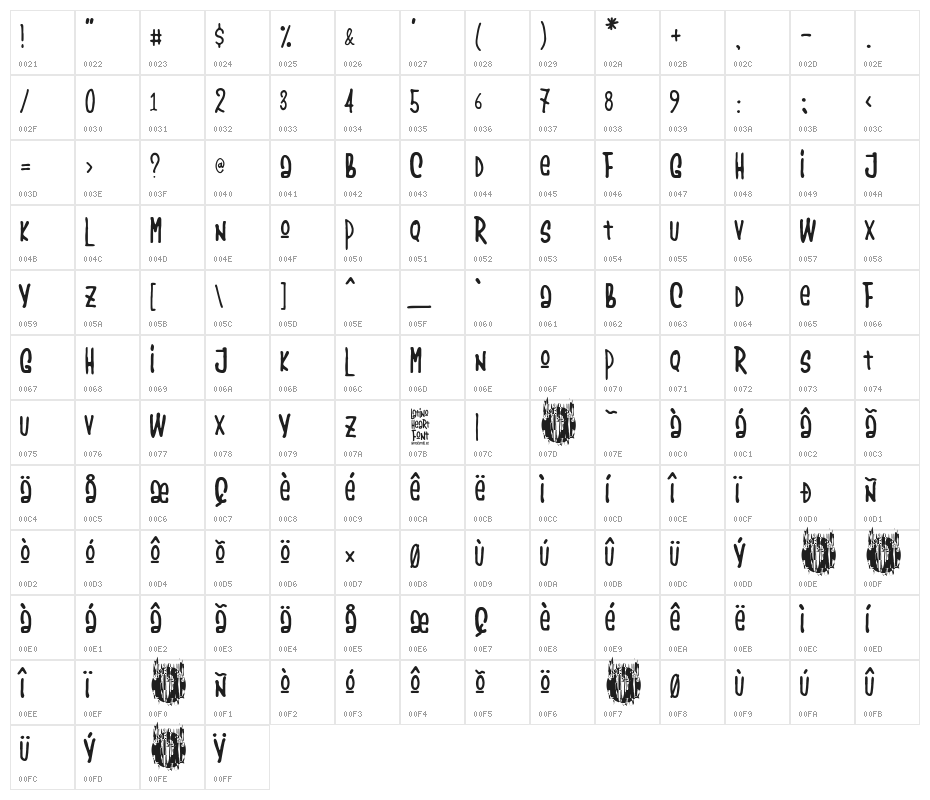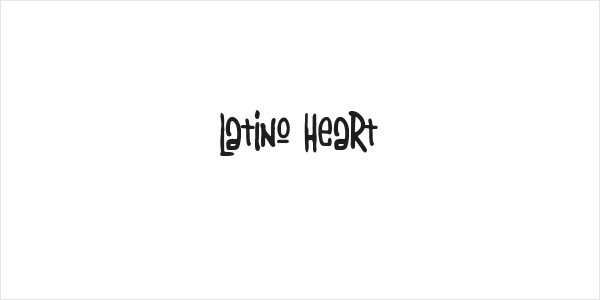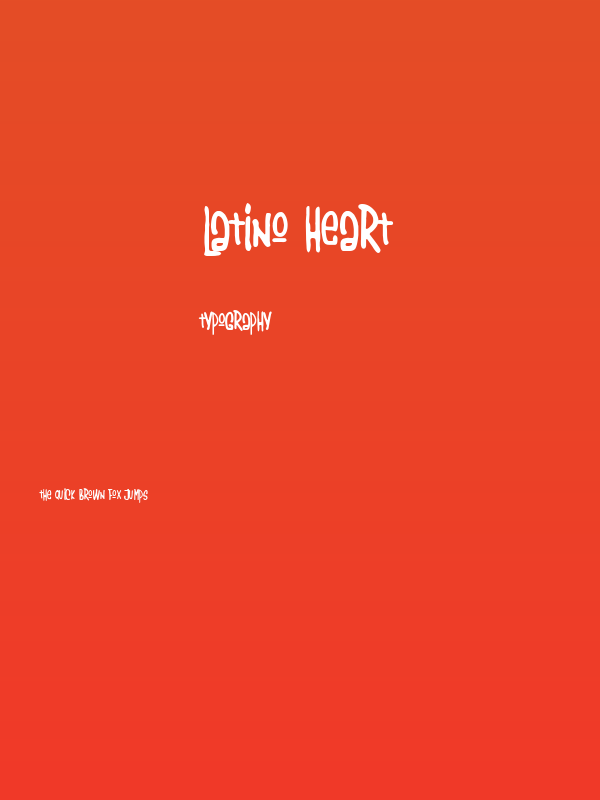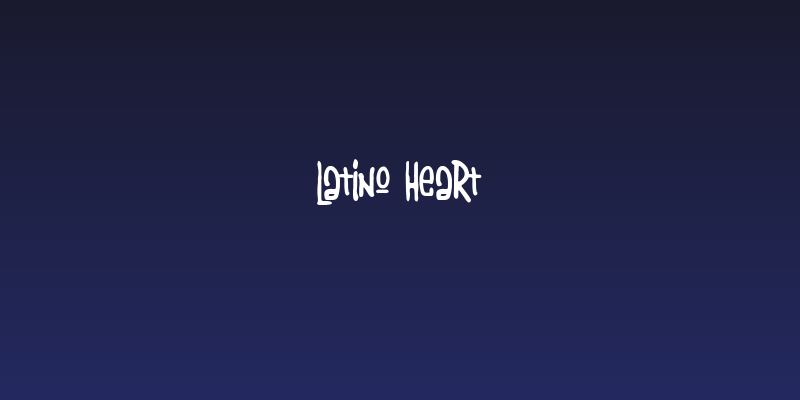
Latino Heart Font
Latino Heart Description
This font features a playful and bold handwritten style with a lively and energetic appearance. The characters are rounded and slightly irregular, giving a casual and friendly feel. The uppercase and lowercase letters maintain a consistent style, with the uppercase being slightly taller and more pronounced. Numbers and special characters are designed to match the overall aesthetic, ensuring a cohesive look across all text. The font's unique personality makes it stand out, making it suitable for creative and informal projects.
| Use Case | Headlines, Logos, Casual text |
| Proposed Projects | Ideal for greeting cards, children's books, playful branding, and casual invitations. |